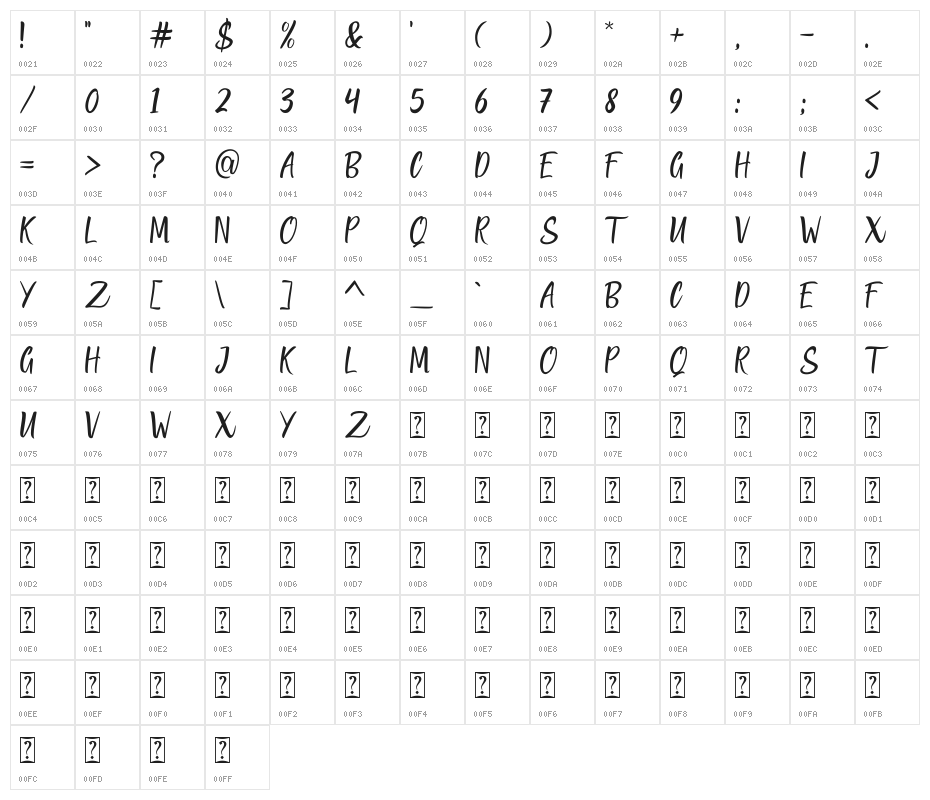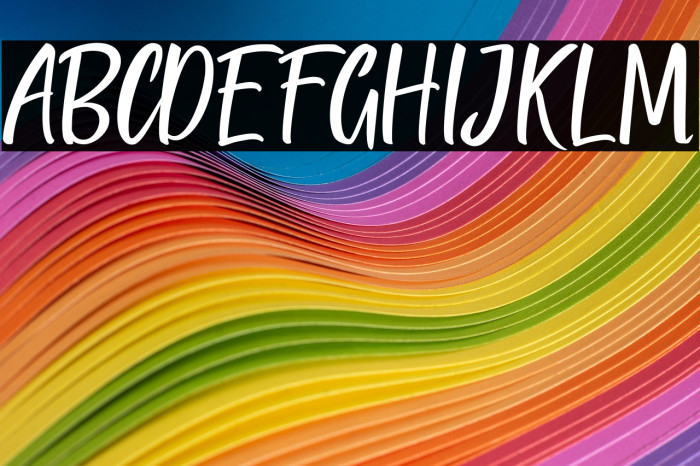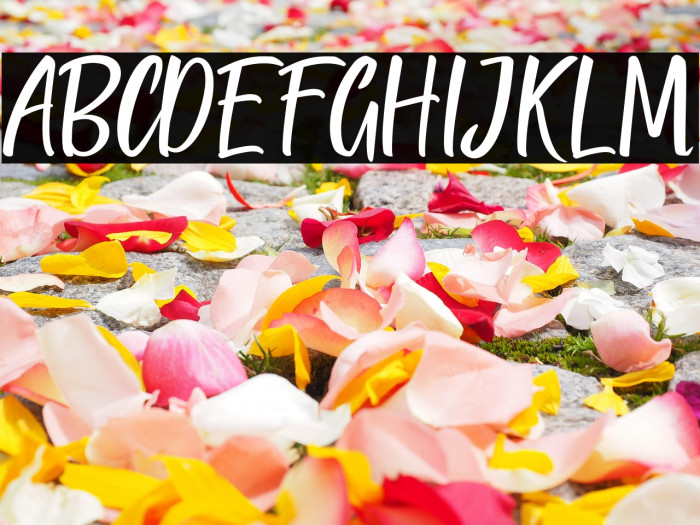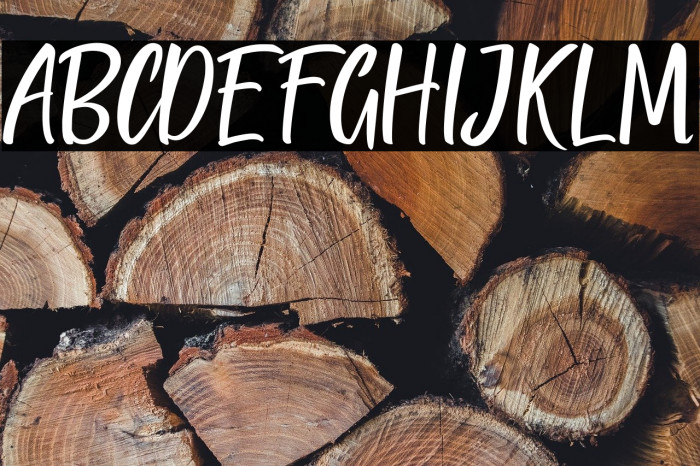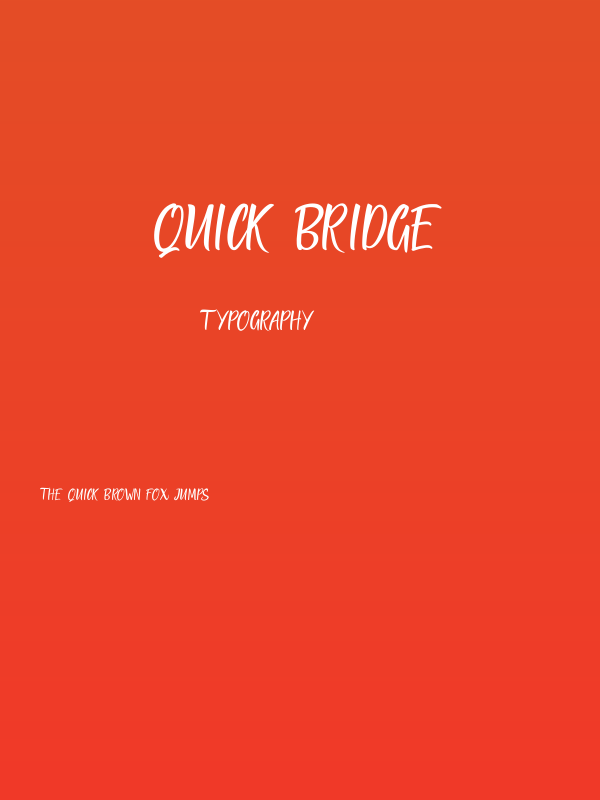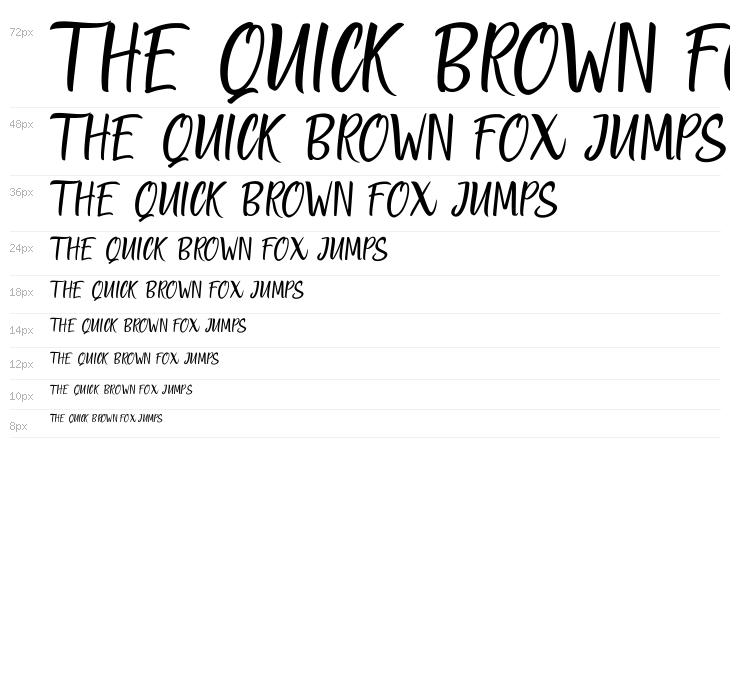
QUICK BRIDGE Font
QUICK BRIDGE Description
This font features a dynamic and energetic script style, characterized by its fluid and connected strokes. The letters are slightly slanted, giving a sense of motion and liveliness. The uppercase and lowercase letters maintain a consistent style, with smooth curves and a handwritten feel. The numbers and special characters are designed to match the overall aesthetic, ensuring a cohesive look across all text elements. The font's playful yet elegant appearance makes it suitable for a variety of creative applications.
| Use Case | Logos, Invitations, Social Media Graphics |
| Proposed Projects | Ideal for branding, invitations, greeting cards, and social media graphics. |